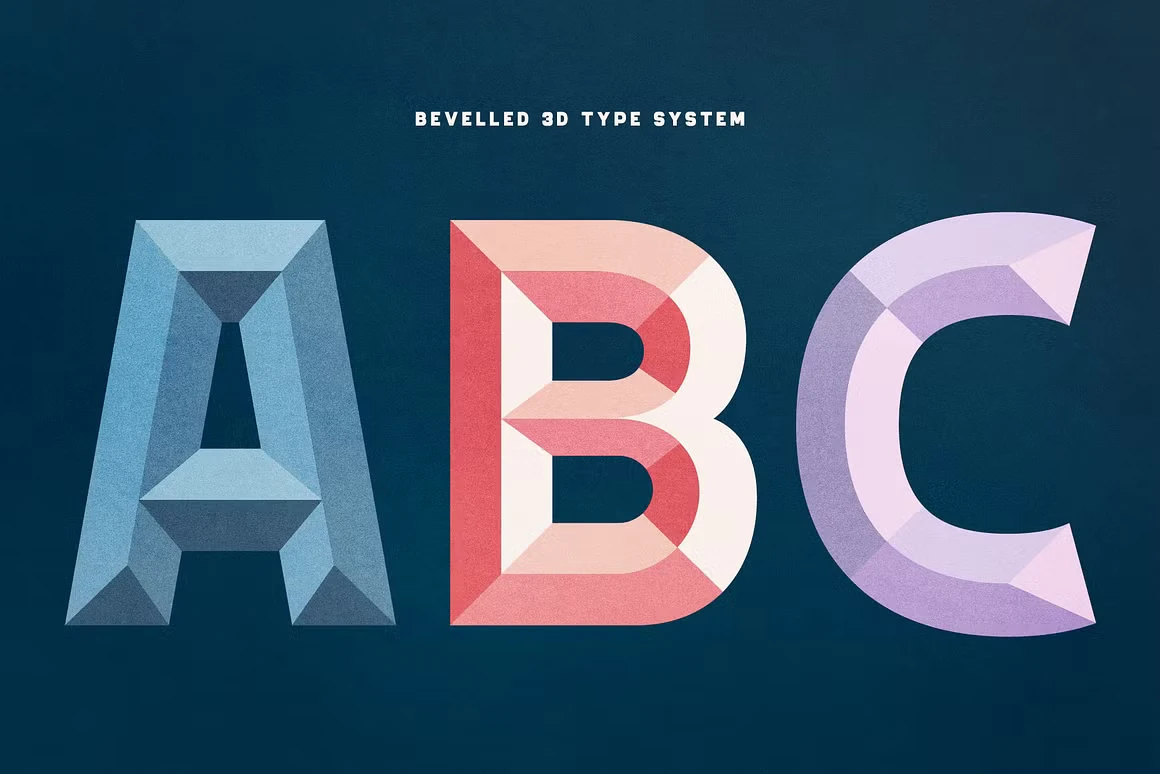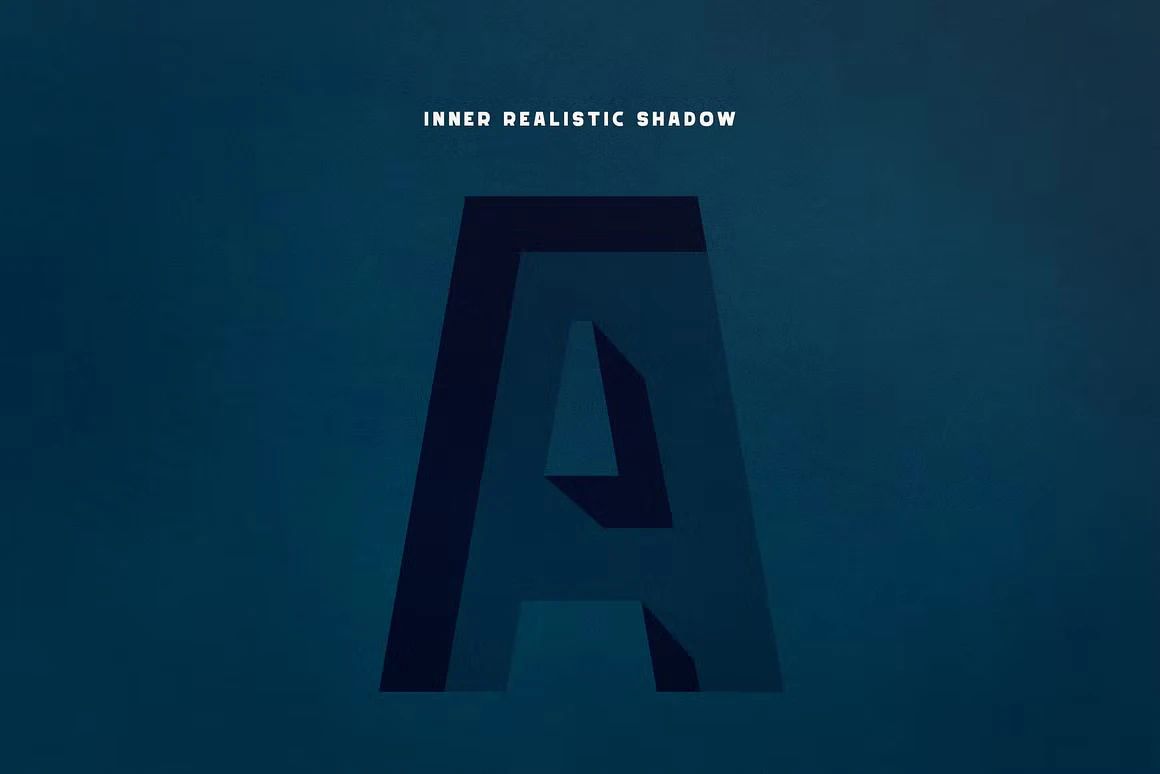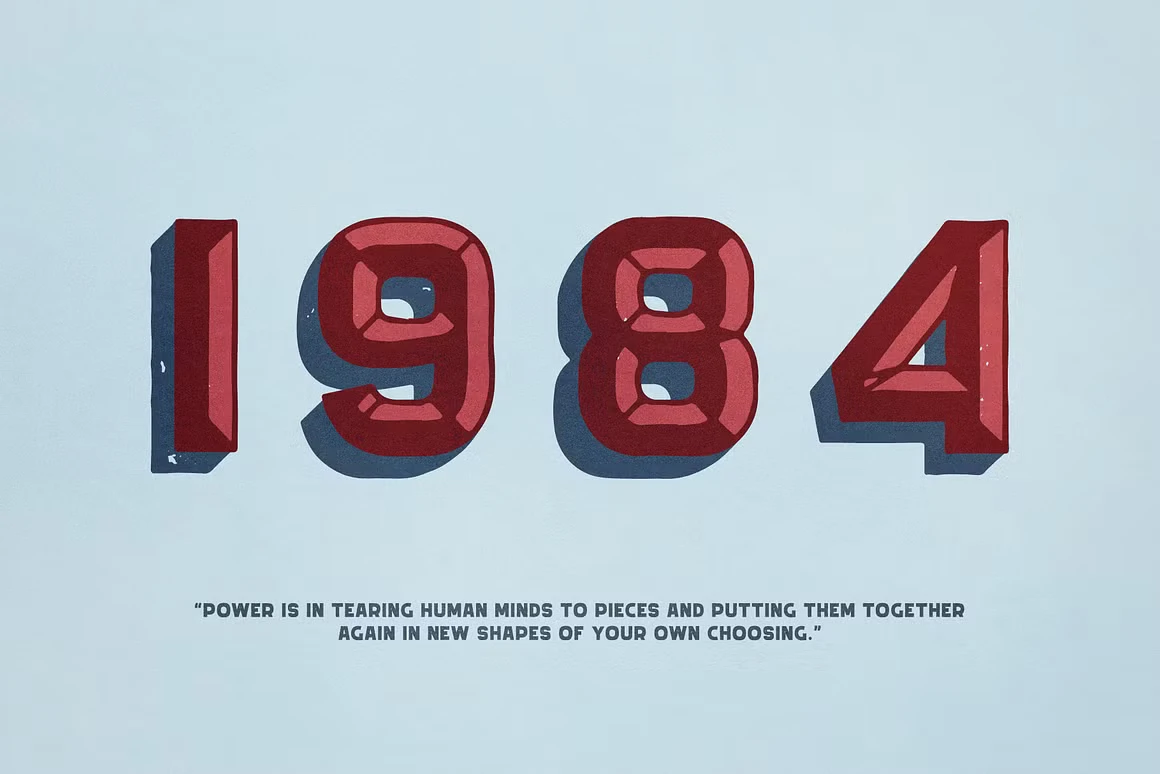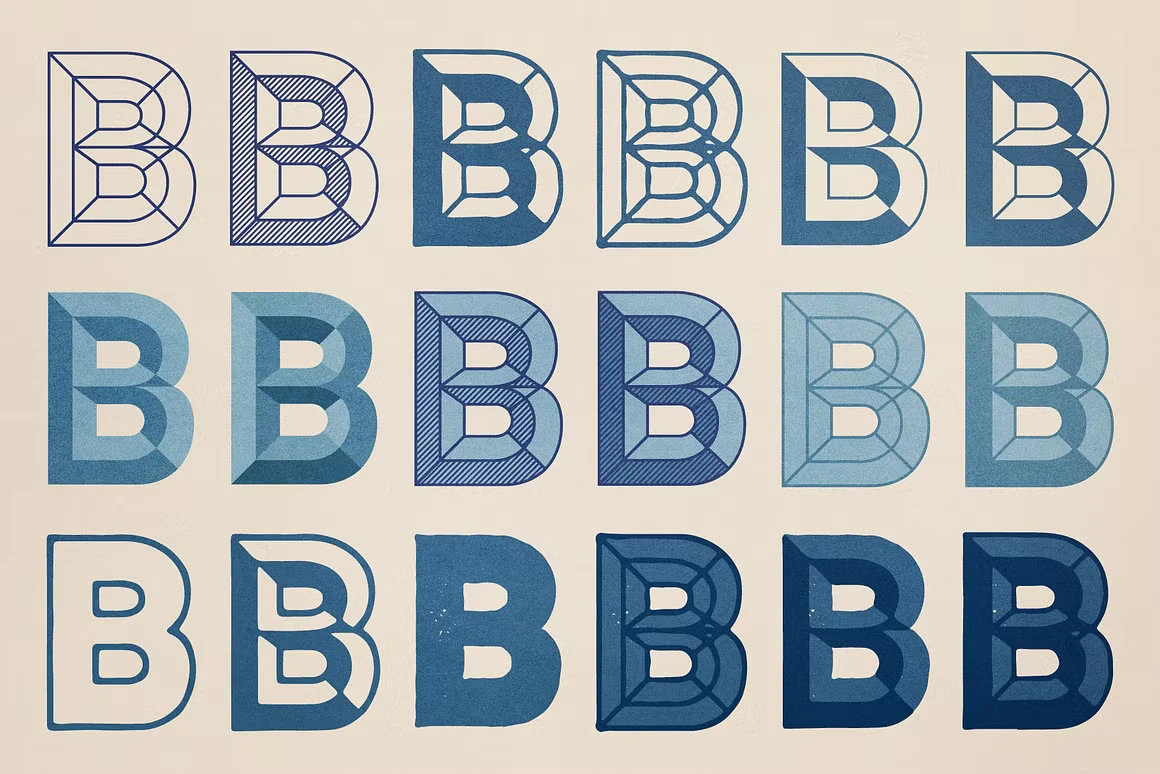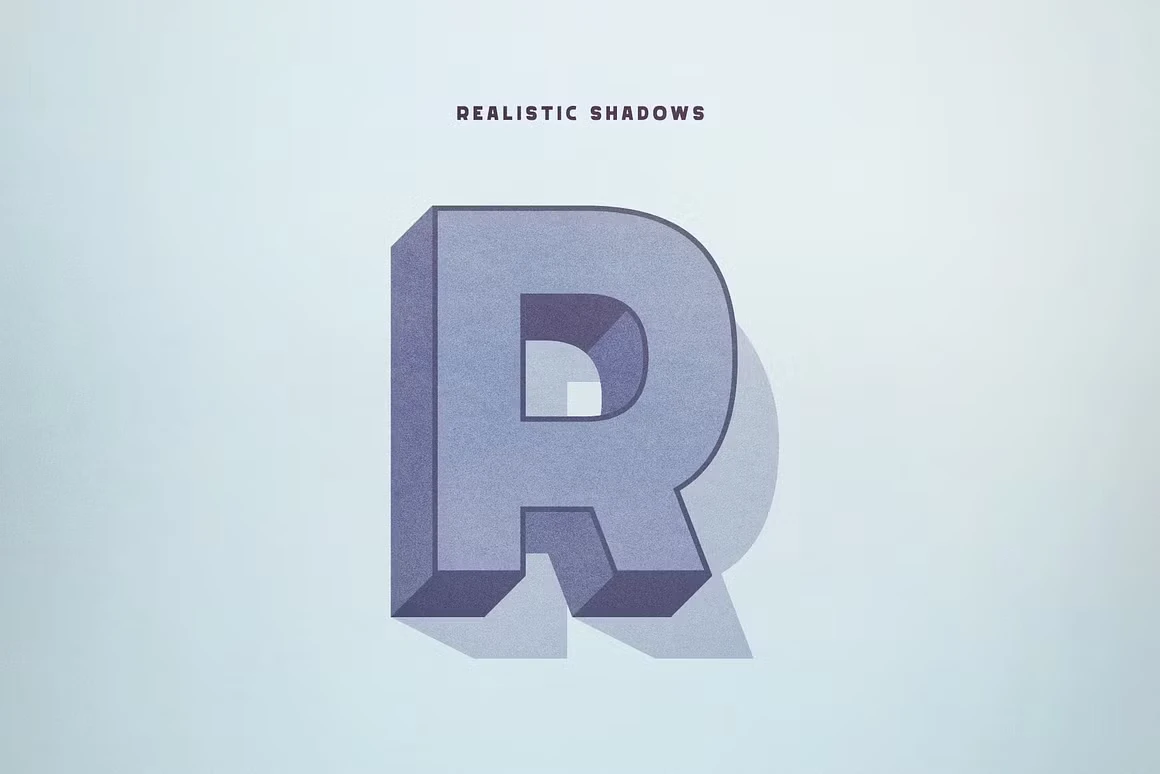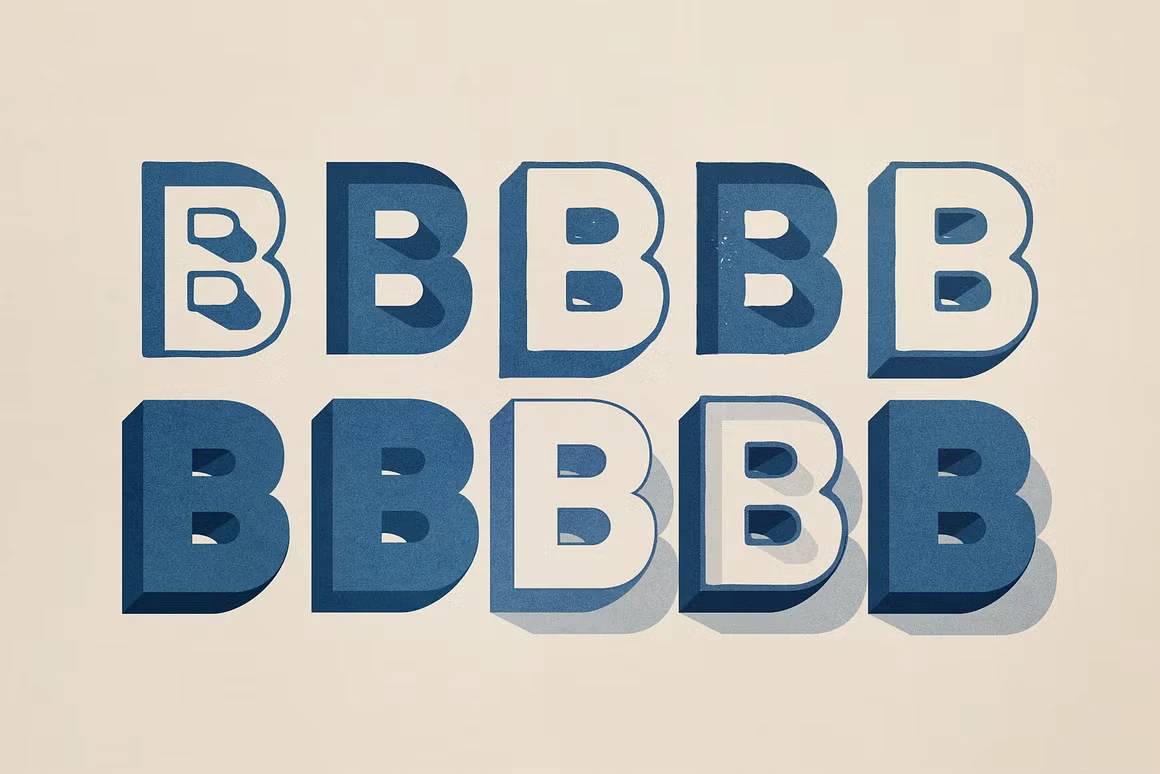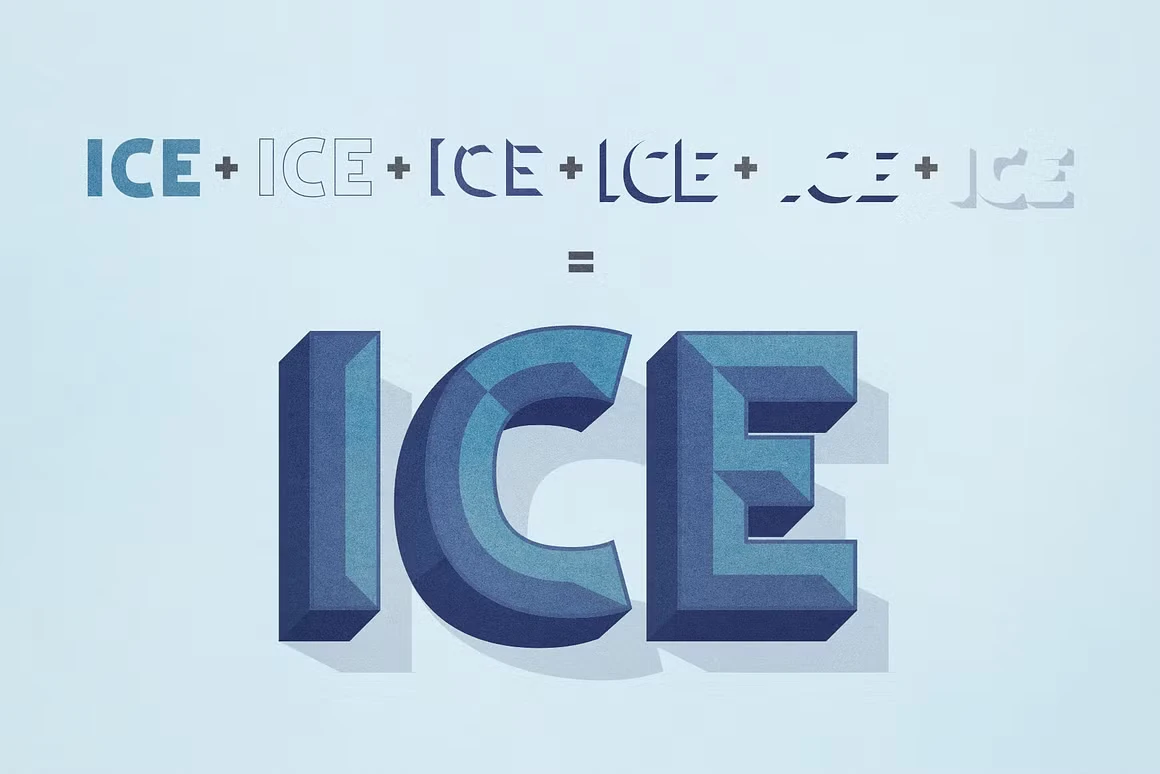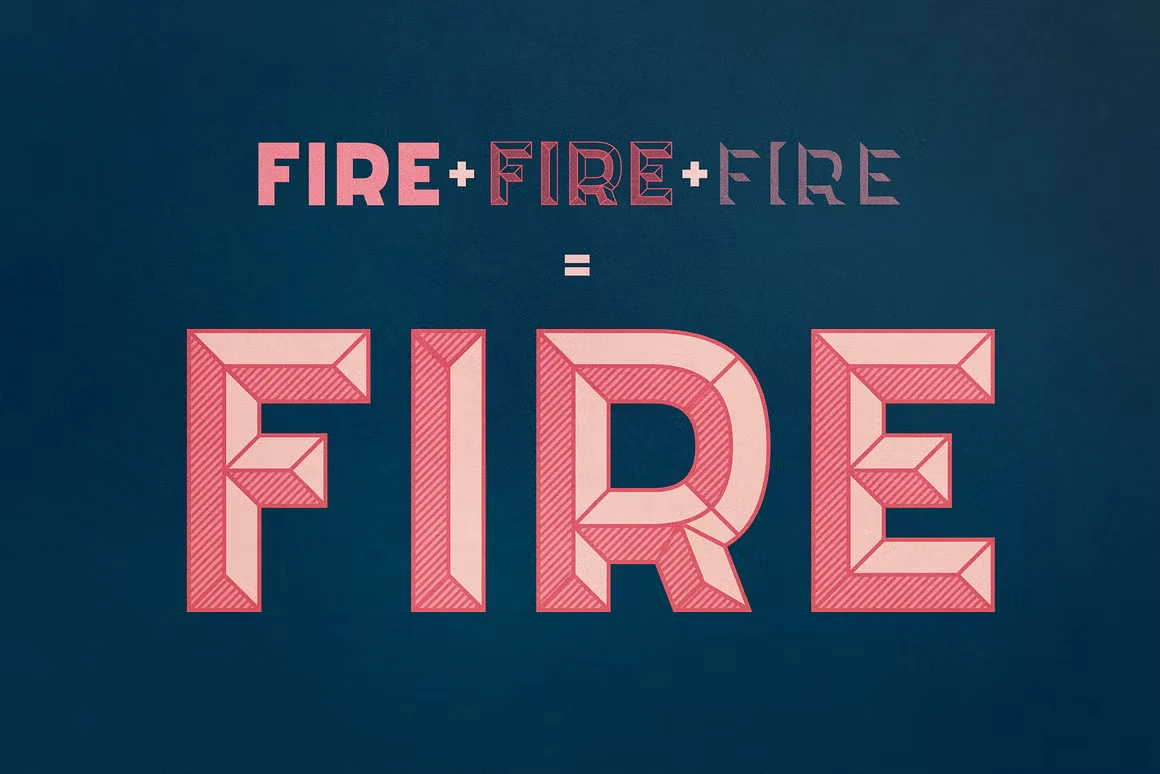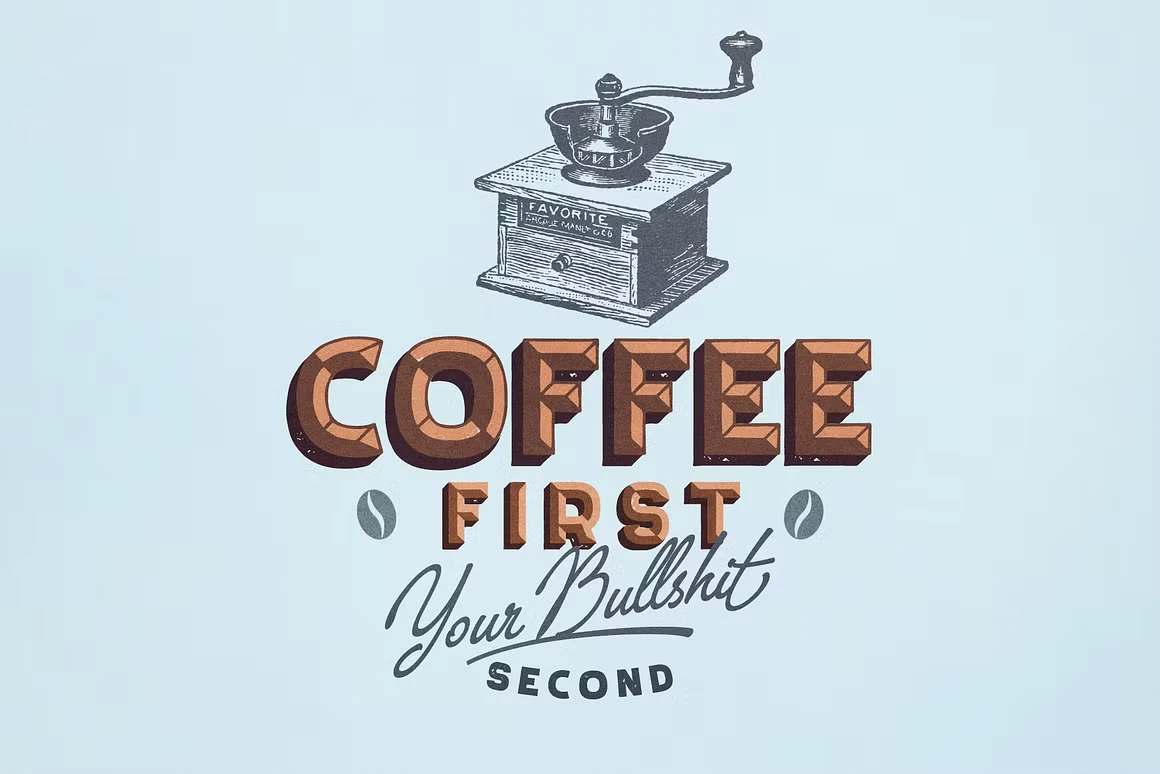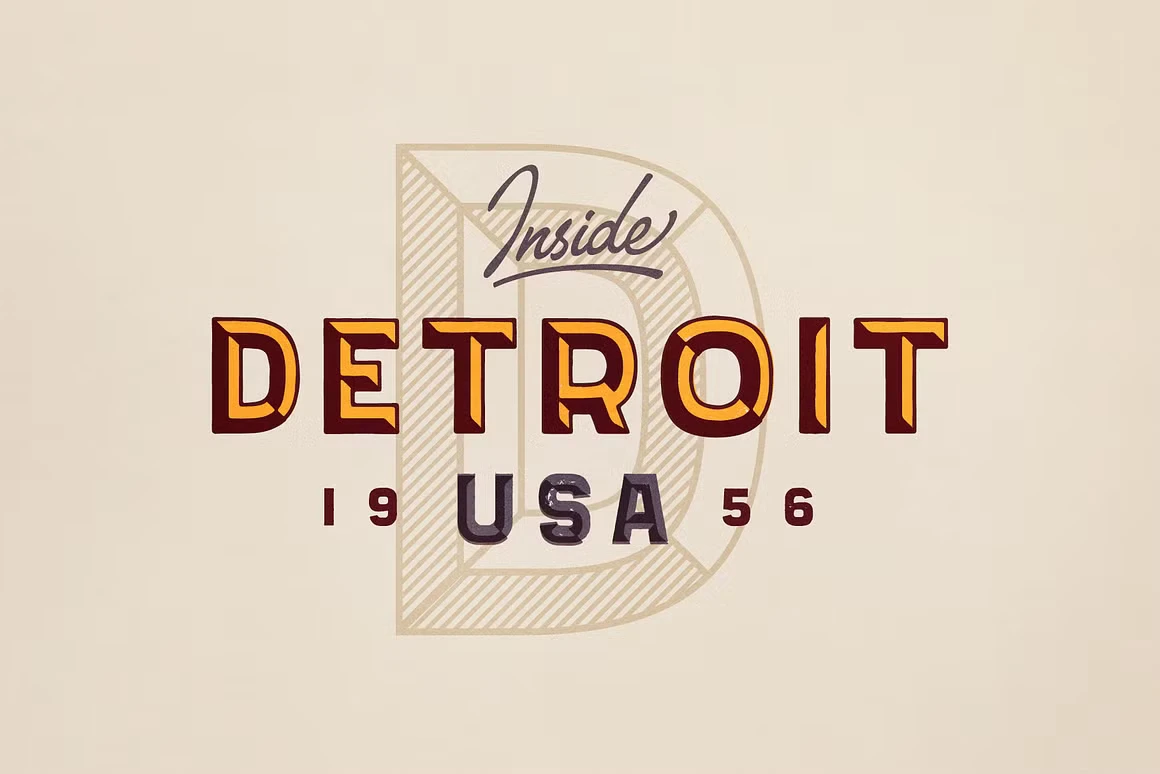
Panini Font Family
Panini is a beveled 3D type system designed with a layered, sandwich-style construction for bold visual impact. Offers a range of styles, from clean and modern to rough and retro, giving flexibility across design needs. Ideal for logos, signage, posters, apparel, headlines, and more. Built to create standout typography with depth and character.
19 styles
3D Bottom
3D Left
3D Right
3D Top
Beveled Empty
Beveled Empty Rough
Beveled Lined
Beveled Rough
Beveled Shadows
Beveled Shadows Rough
Filled
Filled Pressed
Inner Shadow
Perspective
Perspective Rough
Perspective Shadow
Shadow
Stroke
Stroke Rough